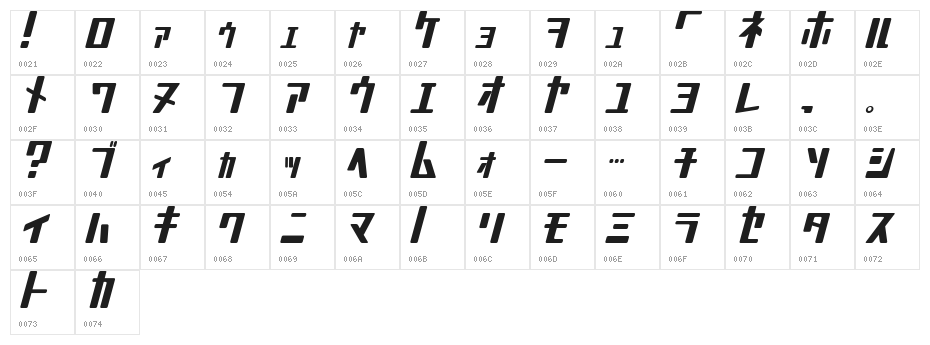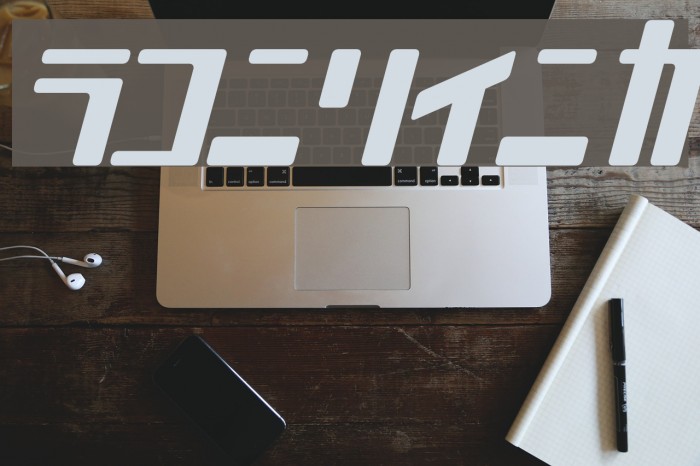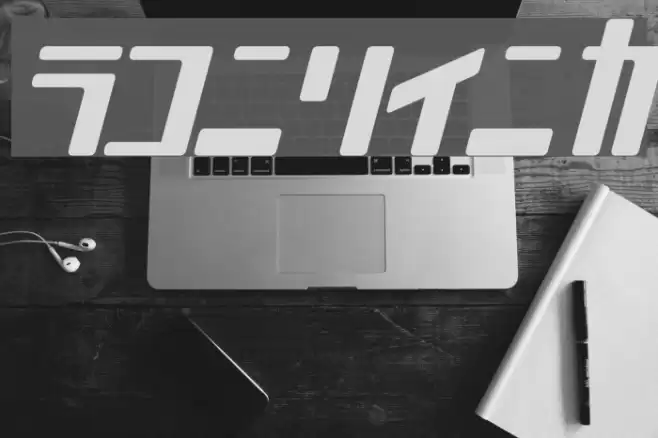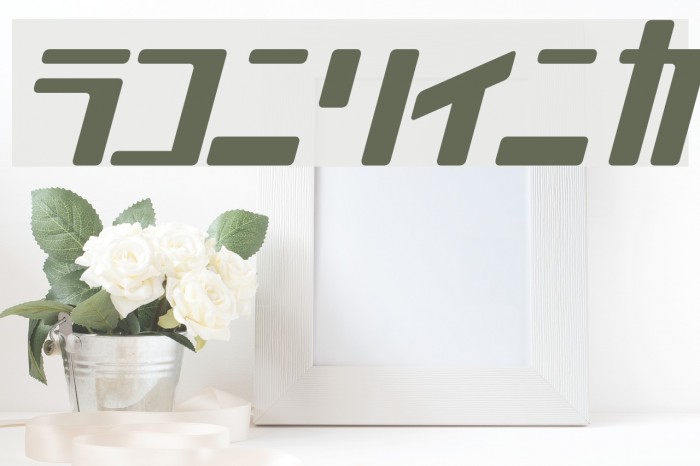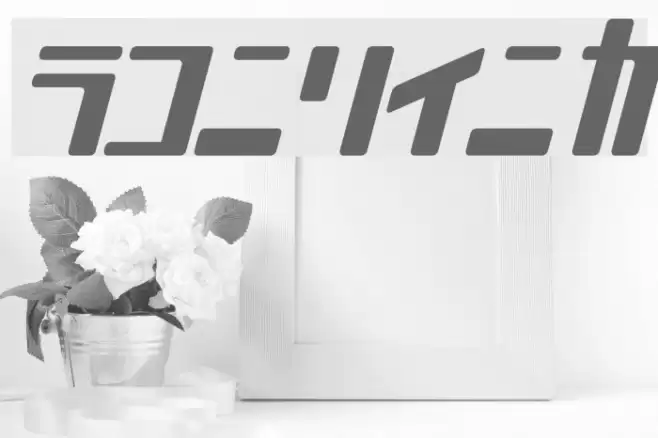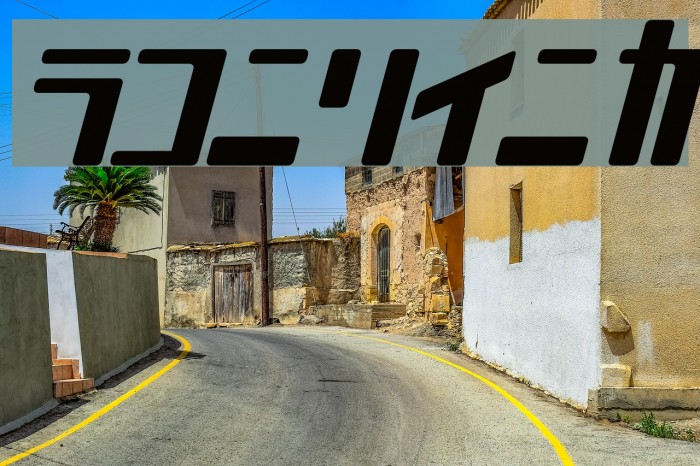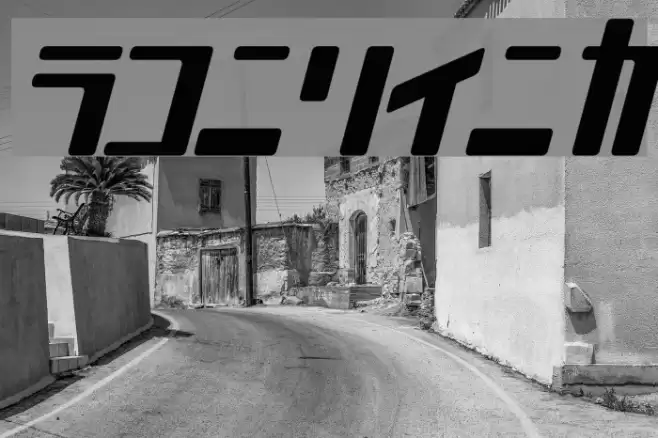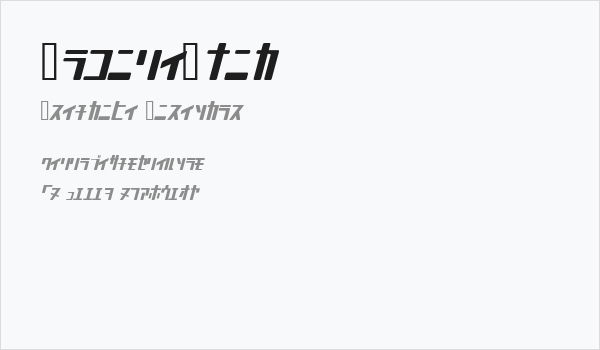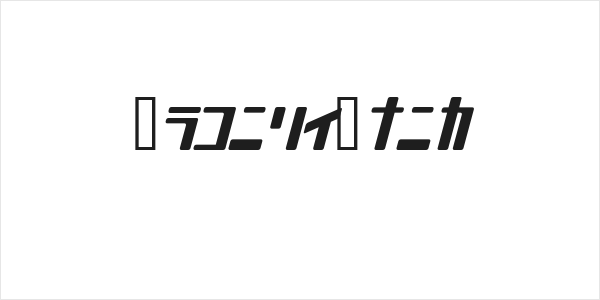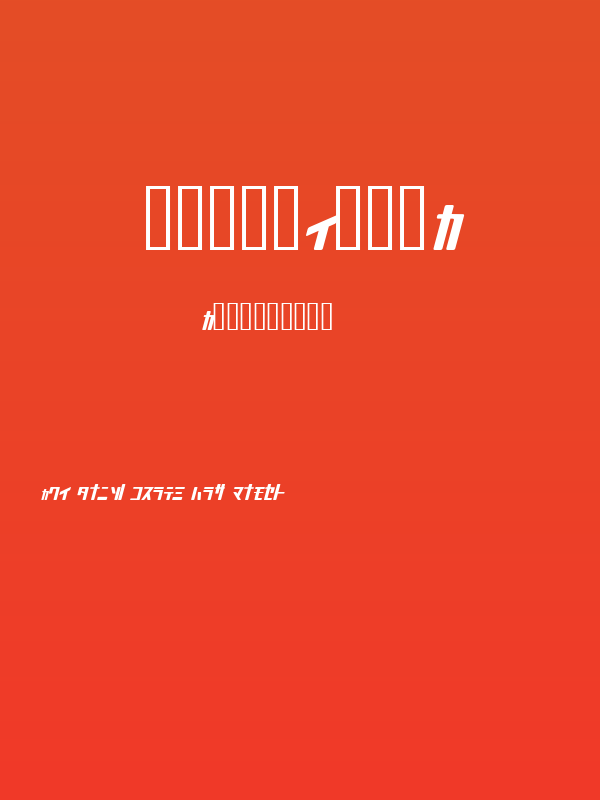
MobileSuit Font
MobileSuit Description
This font features a bold, angular design with a futuristic and mechanical aesthetic. The characters are constructed with sharp edges and geometric forms, giving it a distinct and modern appearance. The font is highly stylized, with a uniform thickness throughout each character, contributing to its strong visual impact. The spacing between characters is tight, enhancing its compact and cohesive look. This typeface is ideal for projects that require a tech-savvy or industrial feel, making it suitable for branding, headlines, and digital interfaces.
| Proposed Projects | Ideal for tech branding, futuristic posters, digital interfaces, and industrial-themed designs. |